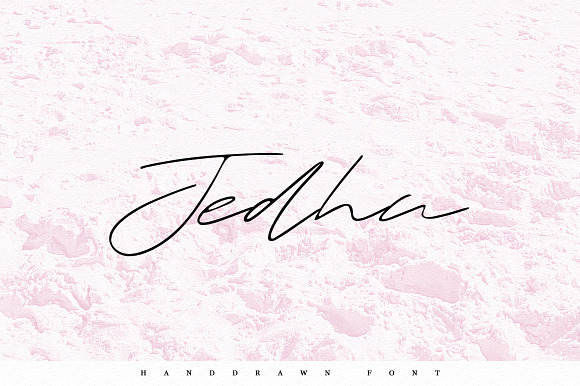
Jedha Font
Jedha Font is perfect for spiritual sanctuary branding, meditation center communications, ancient wisdom publications, mystical entertainment venues, sacred journey travel companies, and pilgrimage site marketing. This transcendent typeface excels in spiritual retreat promotions, wisdom tradition materials, sacred art galleries, and any application where ancient spirituality and mystical knowledge create profound connections with seekers of truth.
What makes Jedha Font so exciting is its extraordinary ability to channel the sacred wisdom and spiritual power of ancient holy sites through letterforms that seem to resonate with cosmic energy. The font features mystical curves, sacred proportions, and transcendent character shapes that evoke the timeless mysteries of spiritual pilgrimage and sacred knowledge. Its holy presence makes it perfect for organizations dedicated to spiritual growth and ancient wisdom preservation.
Jedha Font comes in a sacred family including Light, Regular, Medium, Bold, and Sacred weights. Each style features complete uppercase and lowercase character sets, mystical symbols, spiritual numerals, and transcendent punctuation marks. The font family also includes ancient alternates, wisdom ligatures, and pilgrimage variations that allow designers to create authentic spiritual communications with sacred reverence and professional enlightenment.
This mystical typeface transforms communications into powerful vessels of spiritual wisdom and ancient knowledge. Jedha Font Free Download provides spiritual organizations and wisdom keepers with essential typography that honors sacred traditions while serving contemporary seekers' needs. Whether you're developing brands for spiritual centers, creating materials for wisdom schools, or designing communications for sacred journey experiences, this font delivers authentic spiritual resonance with transcendent beauty.
The font's sacred character makes it particularly effective for meditation centers, spiritual teachers, wisdom traditions, and sacred tourism organizations. Its enlightened readability ensures that Jedha Font communicates clearly while maintaining its distinctive mystical personality. The font's ability to evoke transcendence and spiritual awakening makes it an invaluable temple for any project seeking to honor ancient wisdom and connect with audiences through the eternal appeal of spiritual truth, sacred knowledge, and the transformative power of mystical experience.